Up until this week, the most successful crowdfunded font was an almost predictable winner: Black Tie, a flexible, sans-serif typeface that scales from web CSS to apps with all the seamless utility of Helvetica. It was just the sort of inoffensive script that a designer or developer cruising Kickstarter could deploy without a second guess, which led it to raise $71,686 in 2014.
So who would have thunk a stoic typeface like Black Tie would be dethroned by a quirky outlier–a font called Futuracha Pro, developed by the Athenian creative studio Høly? At the time this article was written, Futuracha was just about to cross the $73,000 mark with a day to spare.
To be fair, the original Futuracha is a gorgeous font for marquee contexts. Its English glyphs have a winding art deco flourish that suggests a Great Gatsby-ian luxuriousness. Meanwhile, its Grecian glyphs are essentially abstract decor to the Western eye, a means to add filigree to a design through typeface alone. Released in 2012 on Behance, this free font was a quick hit, downloaded 250,000 times, and used in posters, logotypes, magazines, and even tattoos.
But there was a catch. It was only an .eps file that could work in apps like Illustrator, where designers could adapt its complex letterforms to fit their use. In short, it wasn’t built for the masses. Futuracha Pro–which launched on Indiegogo this month–offered a massive functional improvement upon the free original. It is a full Opentype font that can work in word processors and other software. Its letterforms now “magically” adapt to the letters around them, without tinkering from the user. In other words, anybody can make something beautiful with Futuracha Pro, just by tapping at their keyboard.
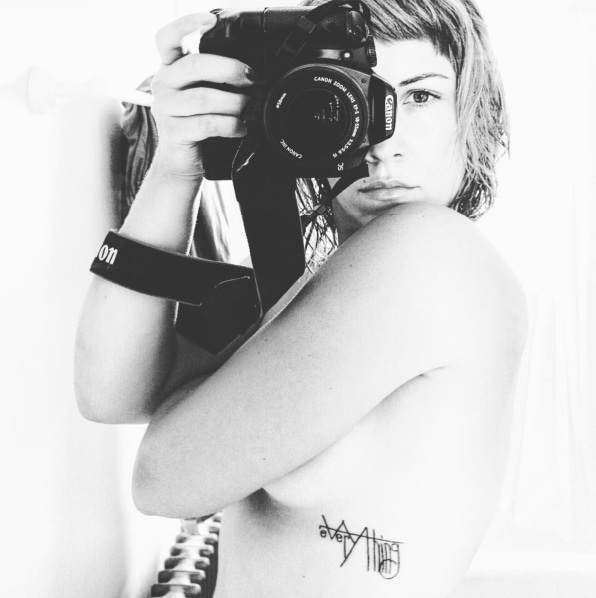
“The transition from the old version to the new one proved to be truly demanding,” says Odysseas Galinos Paparounis, designer of Futuracha and CEO of Høly. “In order to make Futuracha Pro as easy as possible to employ, we had to come up with numerous letter variations and glyphs, so that at the end of the day, everybody can simply type with it, without bothering with typographic principles, which the mechanism of alternations take care of.”
But the effort was worth it: It was specifically this combination of forces that made Futuracha Pro a landmark success. The original font was a good product, and it already had a big audience thanks to its free distribution (and thanks to that audience, a waiting list of 10,000 people awaiting an updated version). The team relaunched it as a markedly improved 2.0 take–which could be privately licensed for $15 and commercially licensed for $50, each a relatively low price. In other words, Futuracha is yet another overnight success that, upon further examination, required years of development and brand building.
With a few hit fonts on the market, the question now isn’t “can you be successful selling a font to crowdfunders,” but “how successful can you be?” Note that the two top campaigns to date are within just a few thousand dollars of one another, peaking around $70,000–meaning that until proven otherwise, that’s the ceiling of such a campaign. It’s by no means a pittance, but it is frankly a lot lower than the millions of dollars an irresistible gadget or video game can fetch.
All the same, Paparounis remains positive about the future. “Typography is a relatively new field in crowdfunding, with only a few campaigns so far, and font designers should perceive this as a great opportunity,” he says. “Crowdfunding is, in general, a fantastic way for creative people to get a break from demanding clients and address a broader audience, where their most creative work can be truly appreciated. It’s thrilling and liberating.”